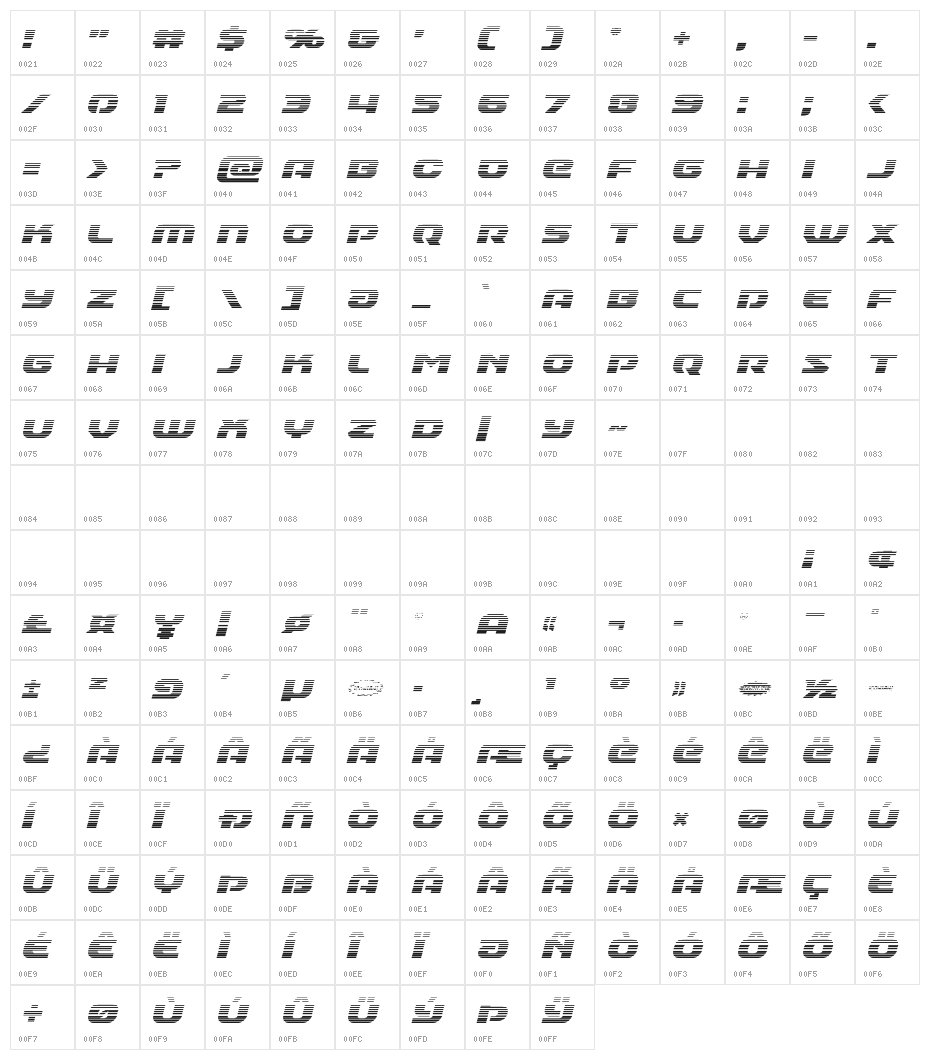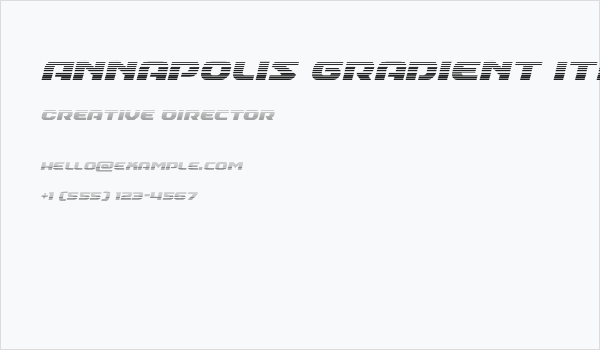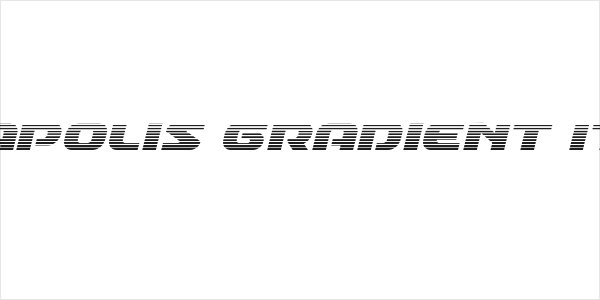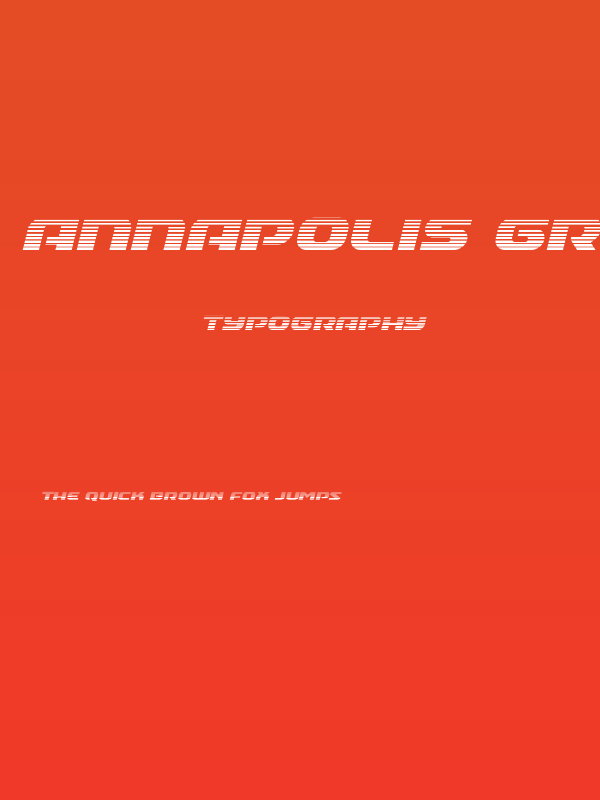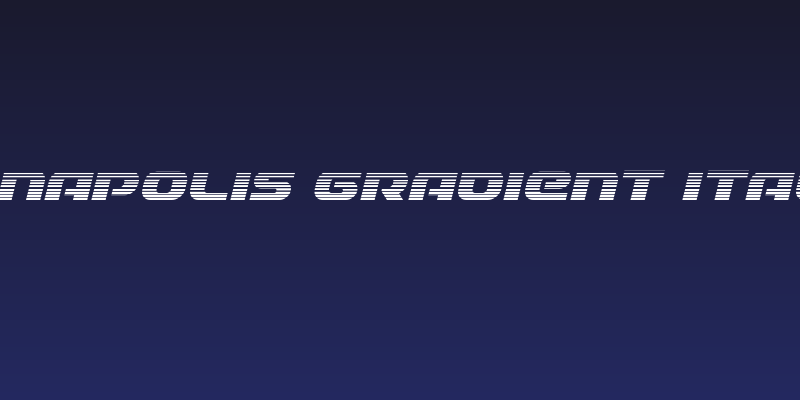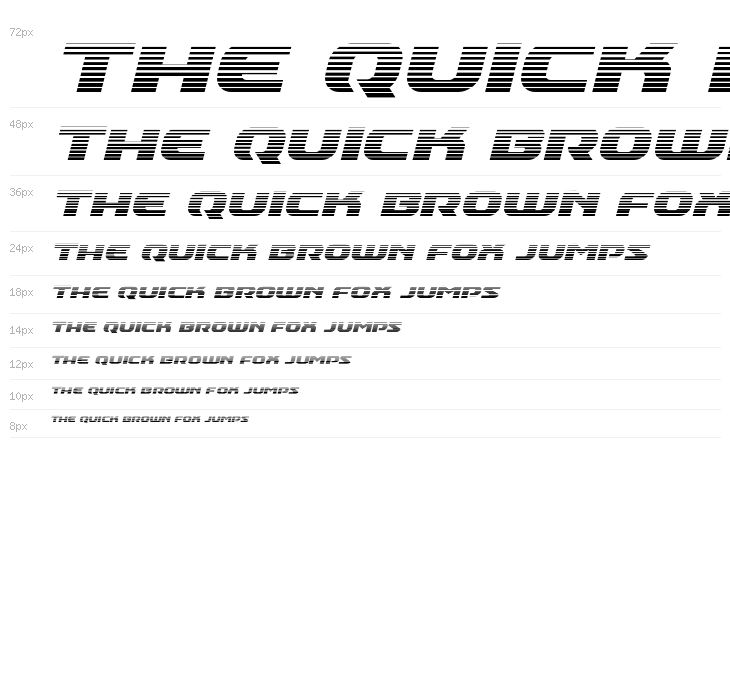
Annapolis Gradient Italic Font
Annapolis Gradient Italic Description
This font features a modern and dynamic design with a distinct gradient effect that gives it a sense of movement and energy. The italicized style adds a sleek and forward-leaning appearance, enhancing its contemporary feel. Each character is composed of horizontal lines that create a striped pattern, contributing to its unique visual identity. The font maintains a consistent stroke width, ensuring readability while offering a bold presence. Its futuristic and stylish look makes it ideal for projects that require a cutting-edge and innovative aesthetic.
| Proposed Projects | Ideal for technology branding, sports team logos, futuristic posters, and dynamic web design. |